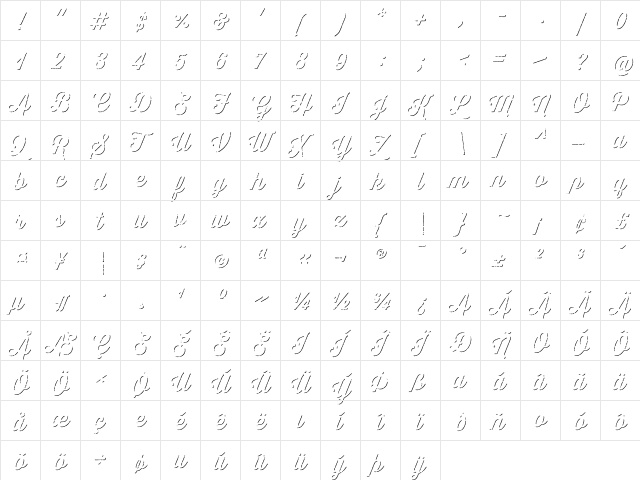
Thirsty Rough Reg Shd Regular Font Preview
Thirsty Rough Reg Shd Regular
Thirsty Rough Reg Shd Regular Font Details
| Foundry | Ryan Martinson |
| Designer | Ryan Martinson |
Design Context for Thirsty Rough Reg Shd Typeface
Thirsty Rough Reg Shd trades polish for personality, using distressed and eroded forms to bring grit and attitude to creative work.
A strong fit for alternative music projects, graffiti-adjacent design, and anything that deliberately resists polish.
Pro Tip: Use Thirsty Rough Reg Shd at larger sizes where the texture and irregularity of each letterform can be clearly seen — it loses its character at small sizes.